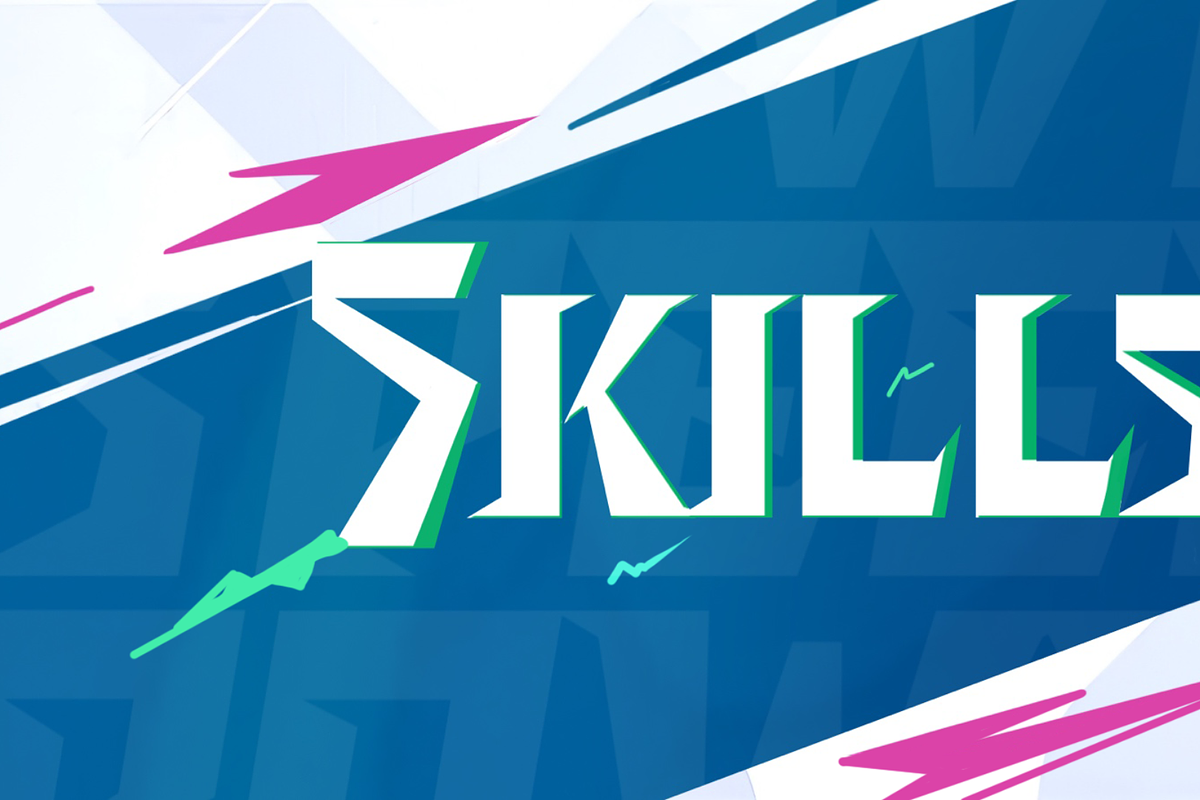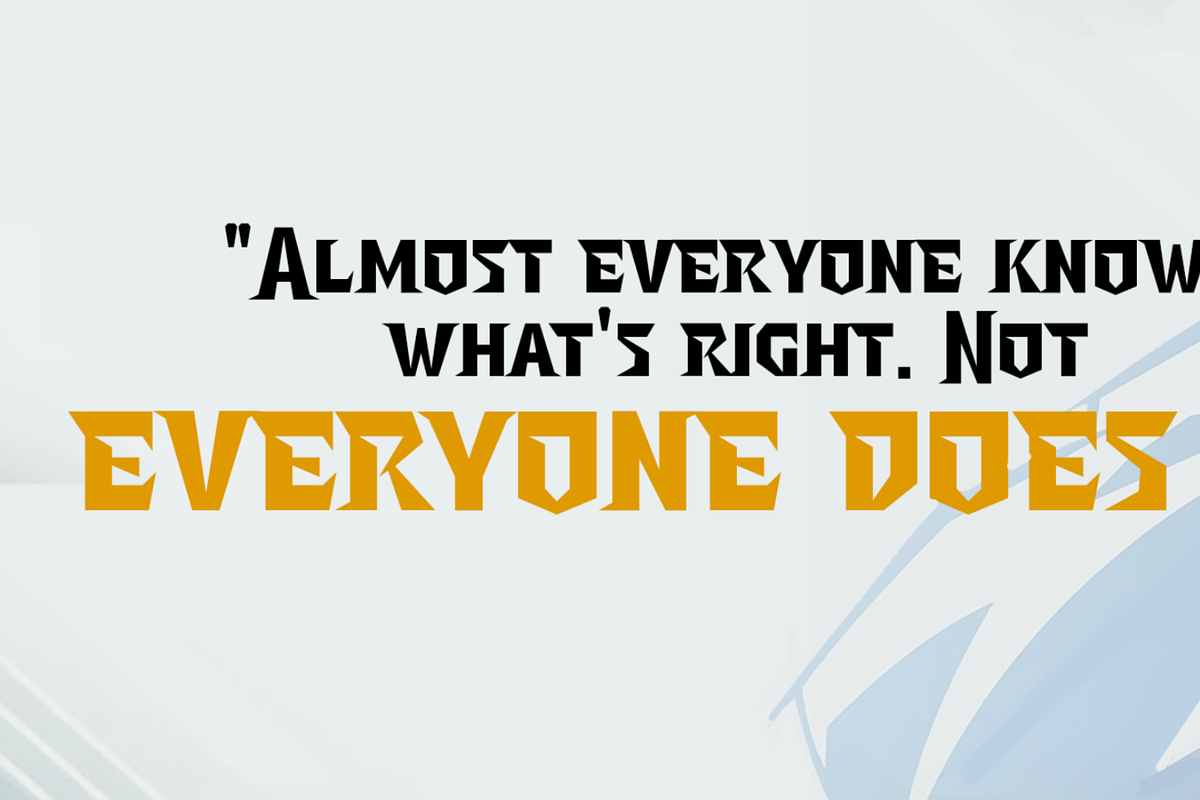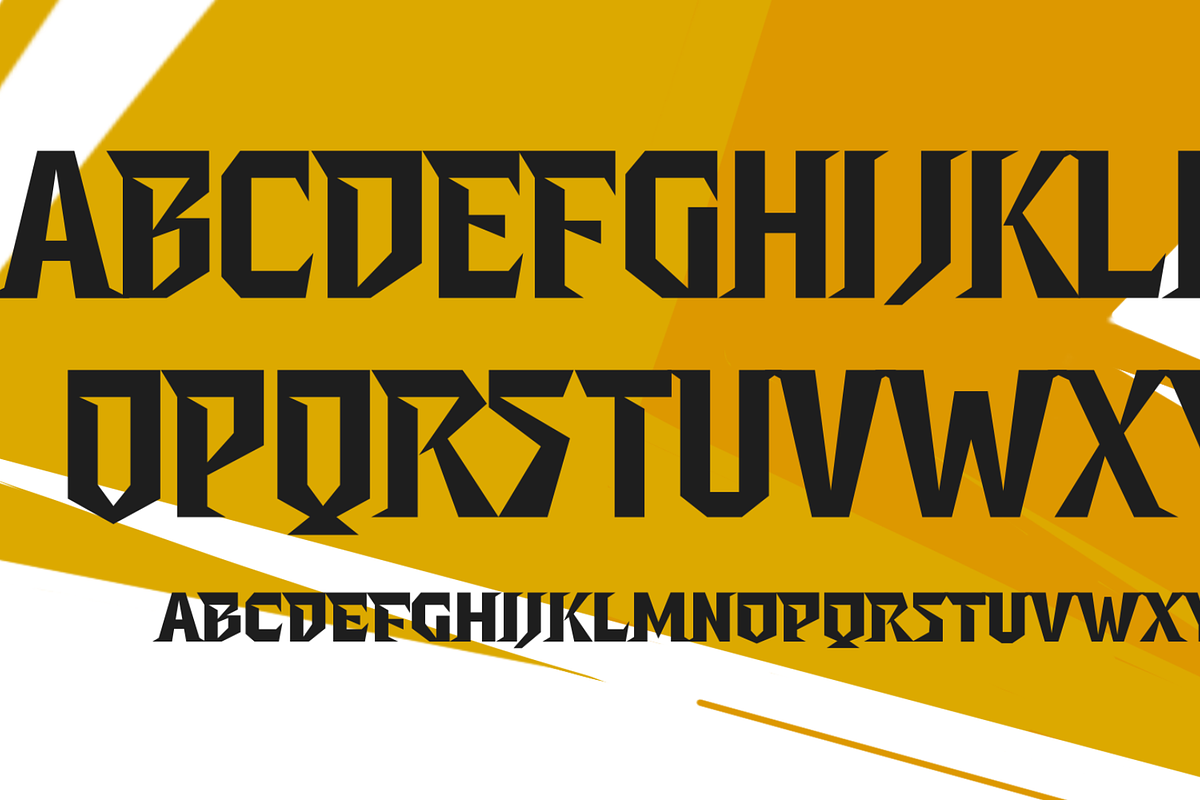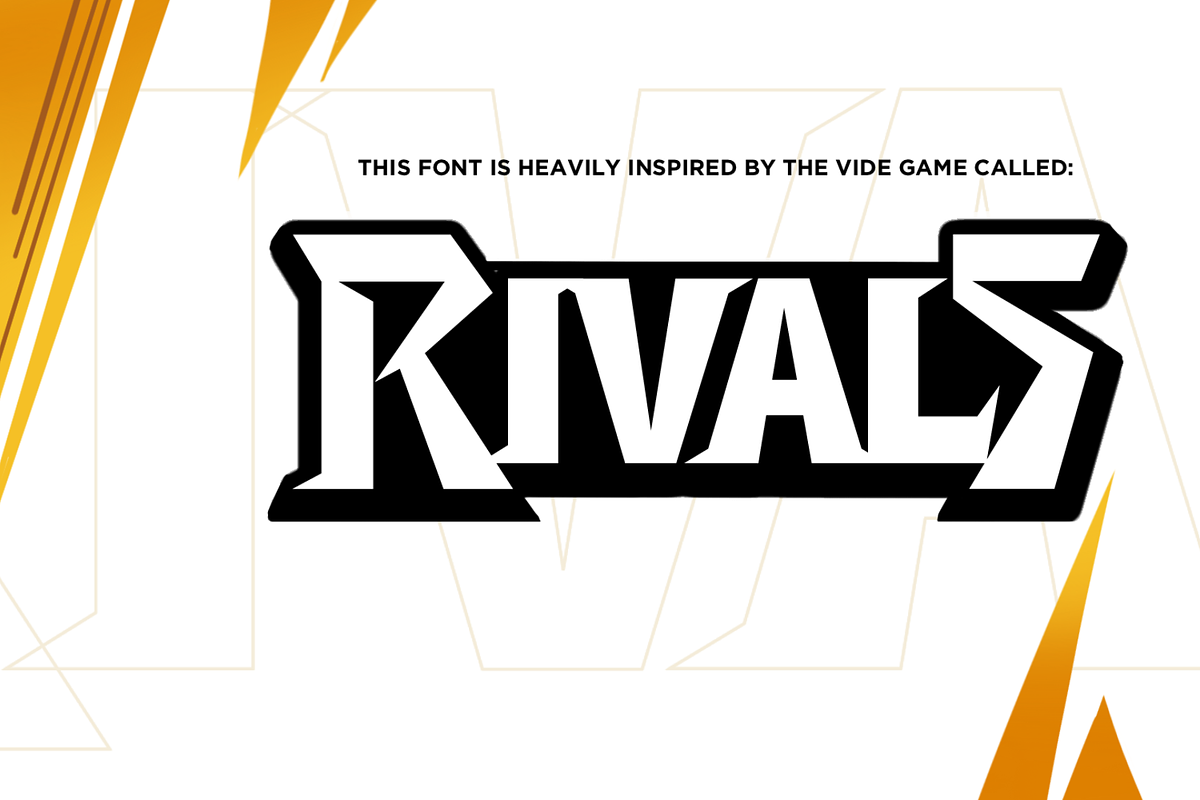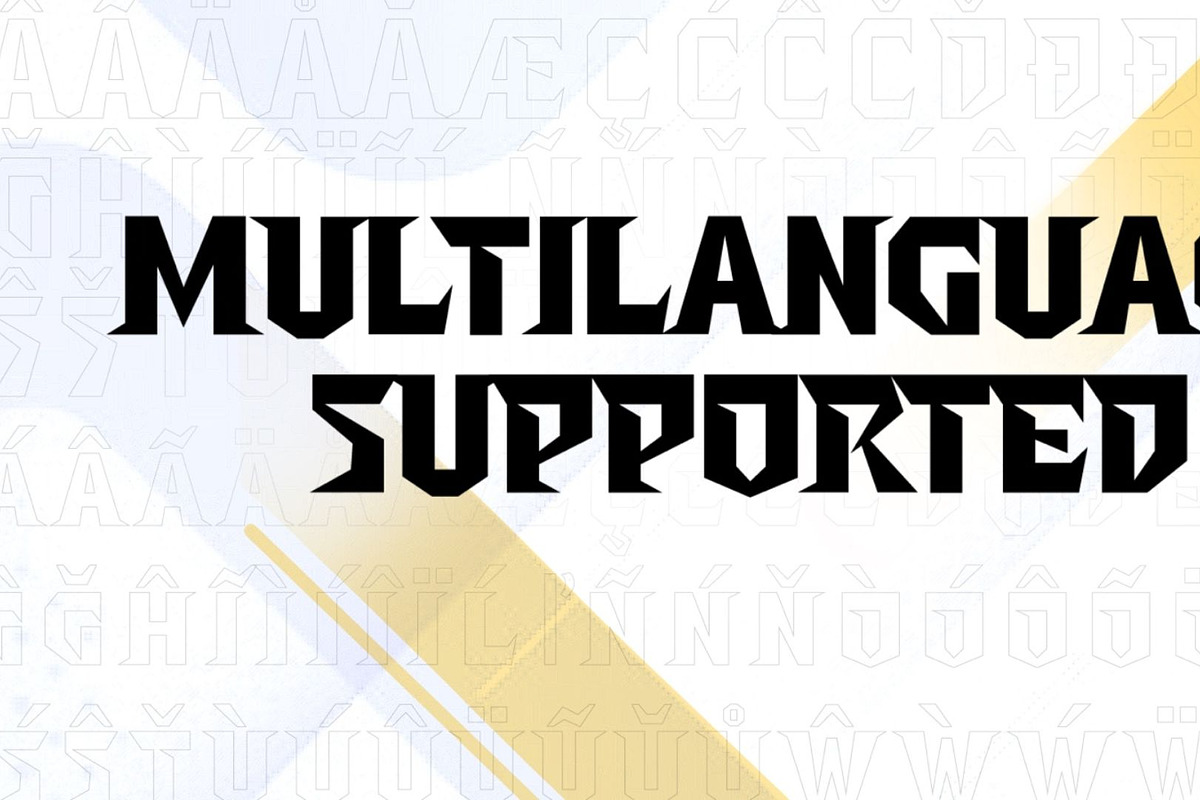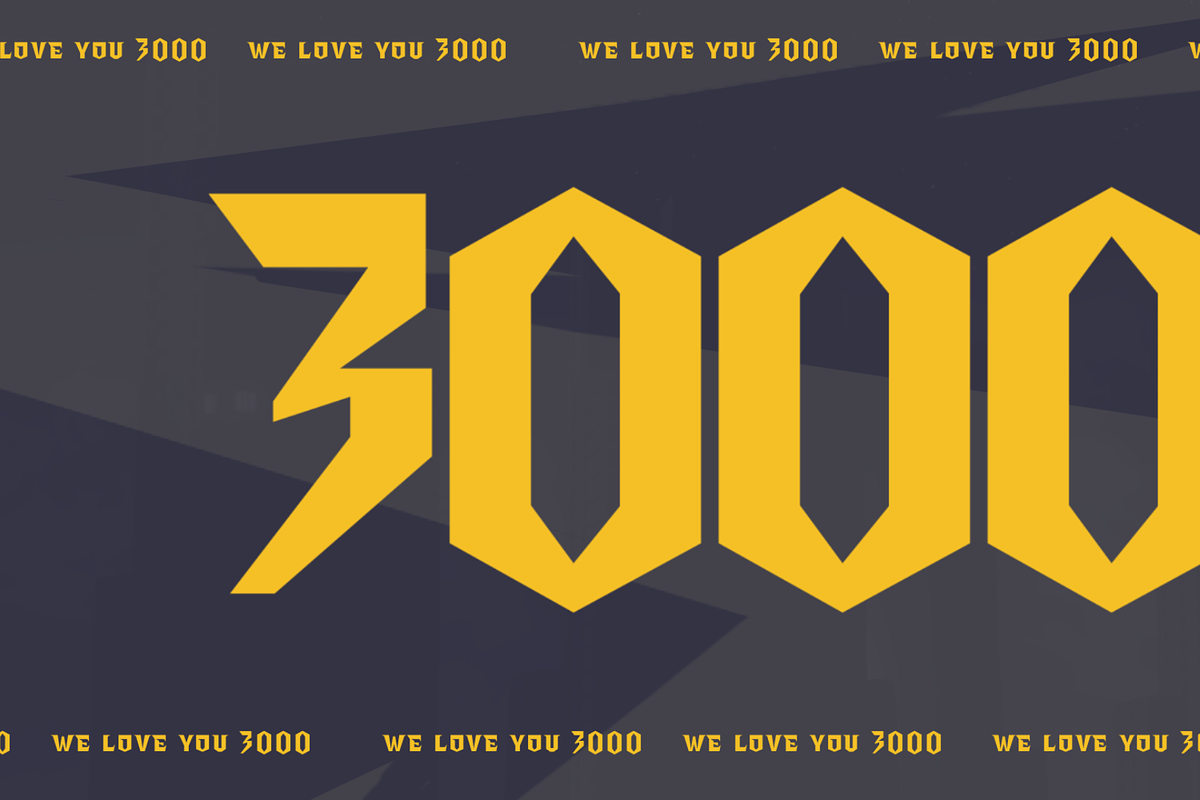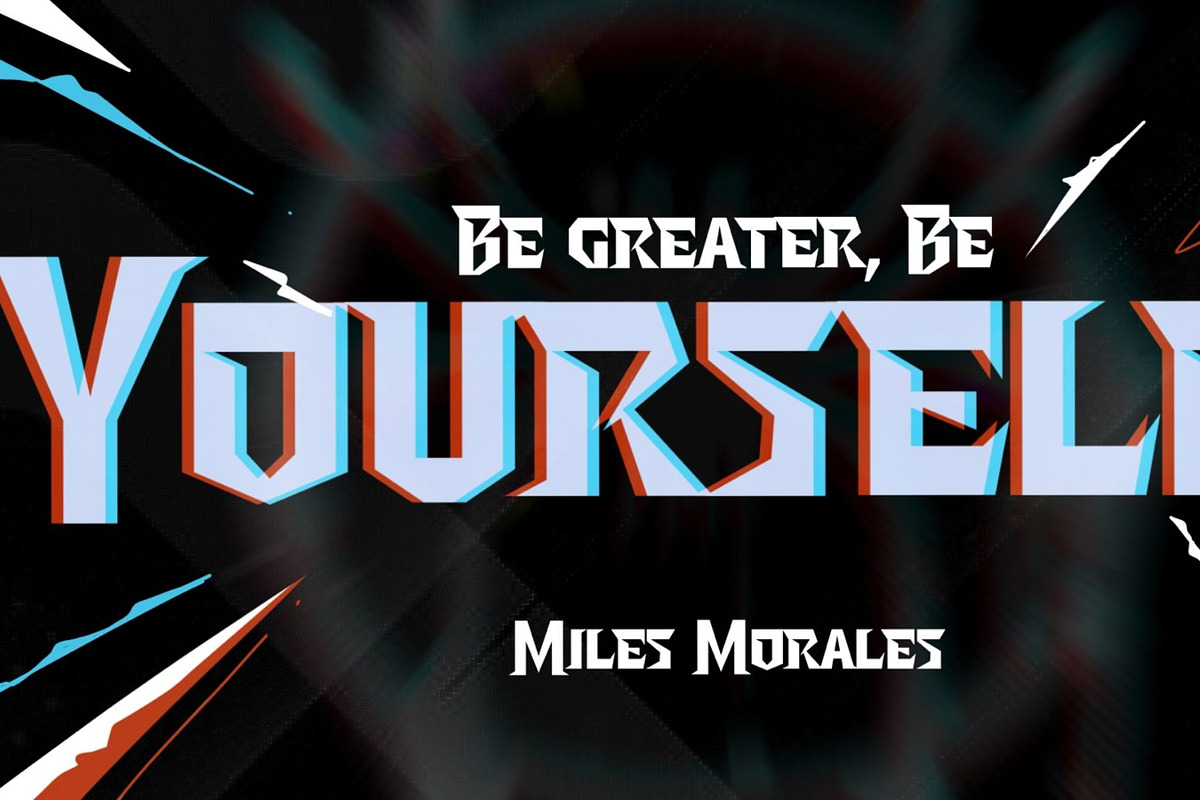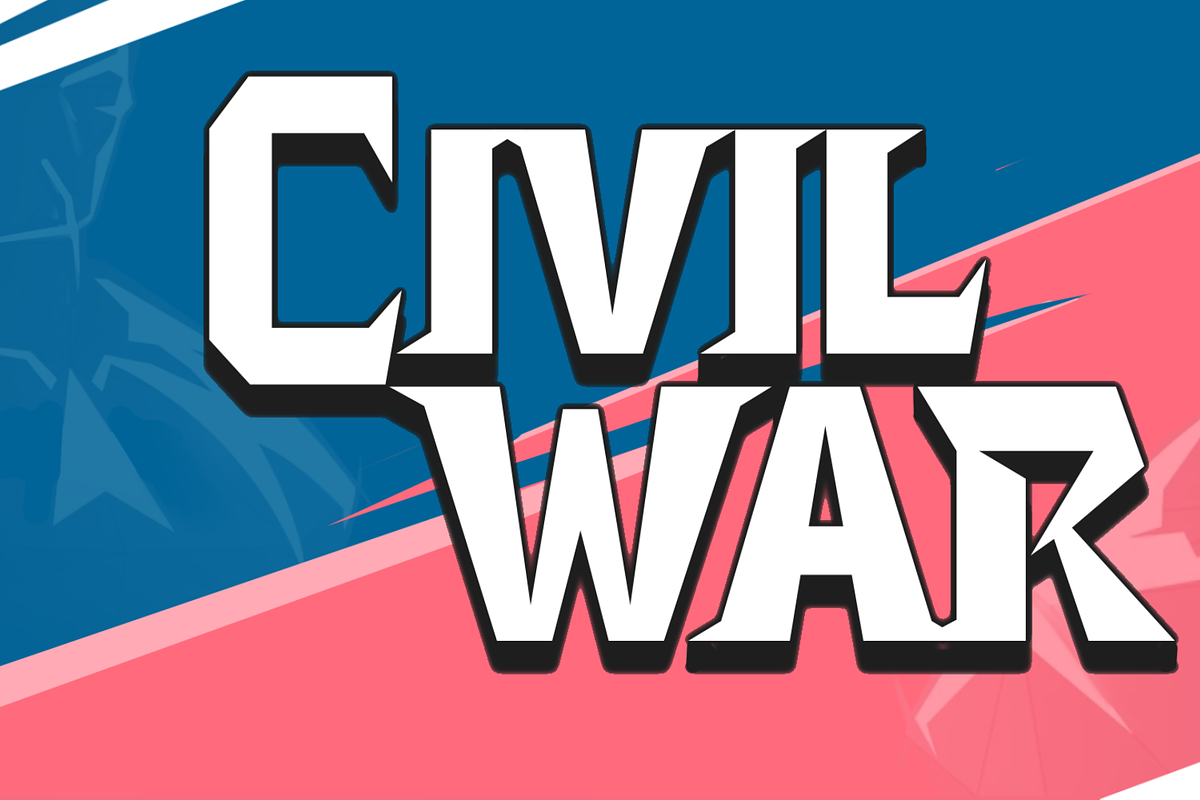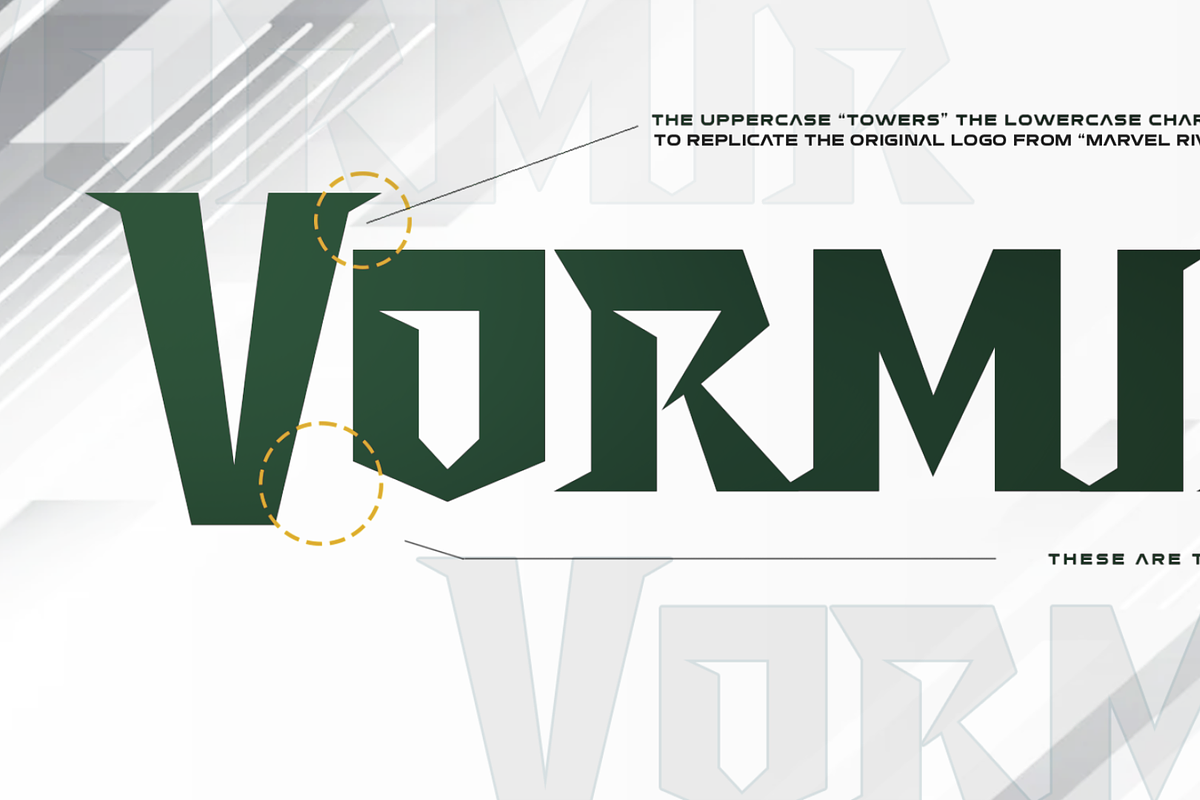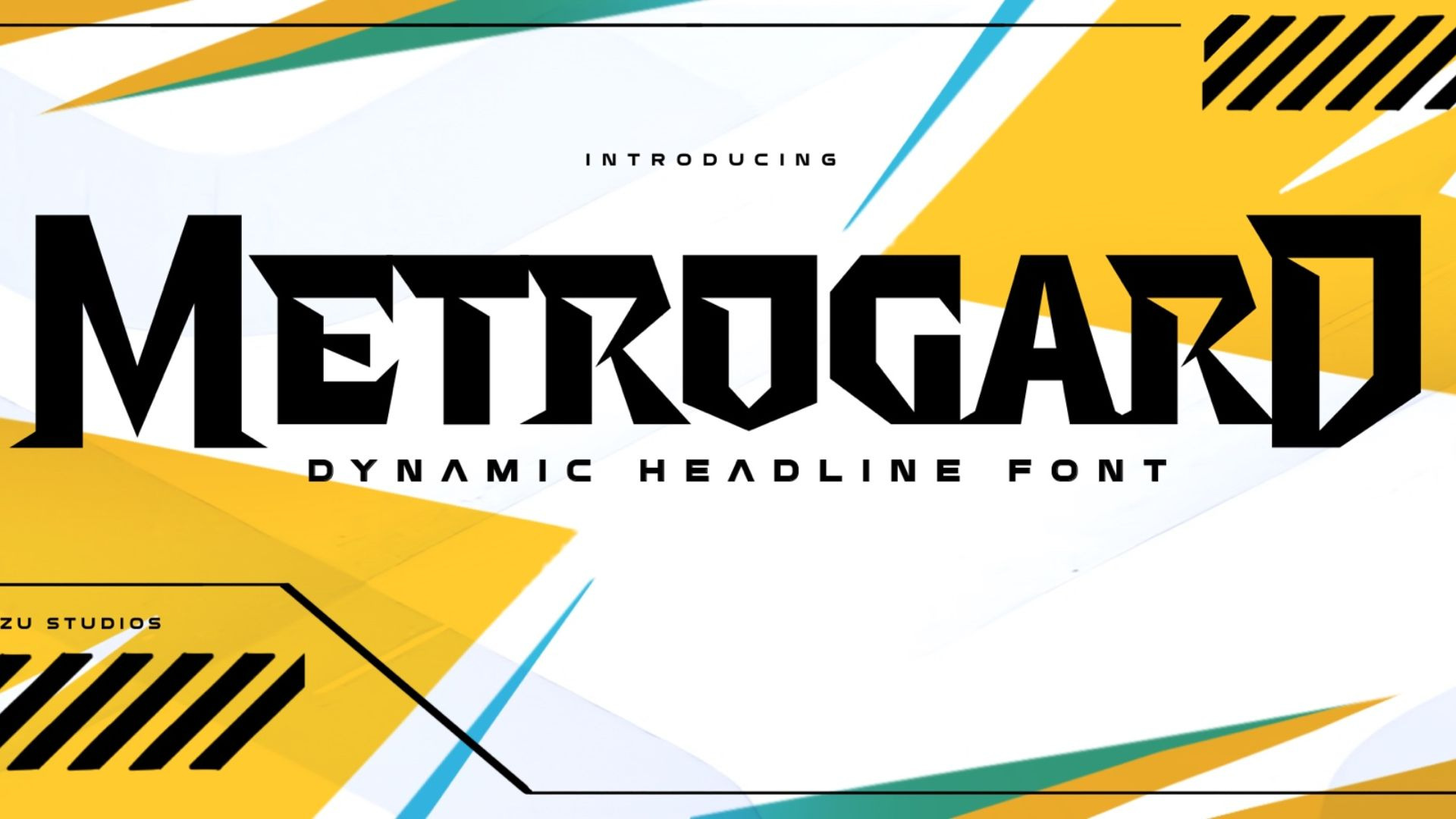
Metrogard- Dynamic Headline Font
"Metrogard" is a dynamic headline font that is heavily inspired by/ referenced to the logo of the video game called "Marvel Rivals"
The name Metrogard comes from combining the names of the fictional settings from both DC and Marvel universe. "Metro" from METROpolis from DC's Superman and "Gard" from asGARD from MARVEL's Thor blend of Metropolis and Asgard, suggesting a futuristic yet godly aesthetics.
Due to the dynamic size of Uppercase letters to lowercase letters, it is best to only use this font for capturing viewers' attention on large-scale media such as posters, banners, social media thumbnails, shirts, and so on.